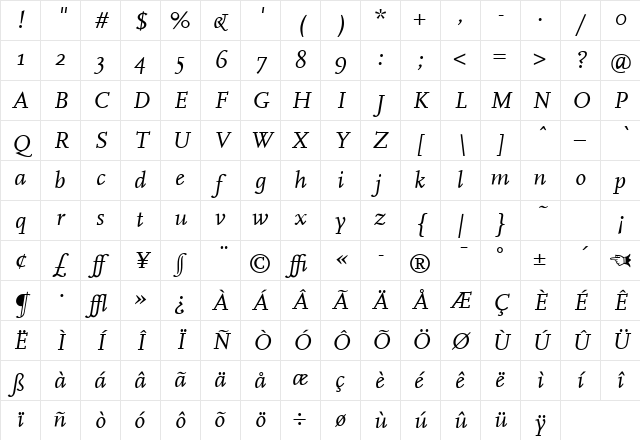
Cscala is a composed and adaptable typeface that performs quietly and consistently across a wide range of design contexts. The slanted form adds forward momentum and visual energy.
Pro Tip: Use Cscala for emphasis, pull quotes, and subheadings where its slanted energy can add rhythm to the layout.